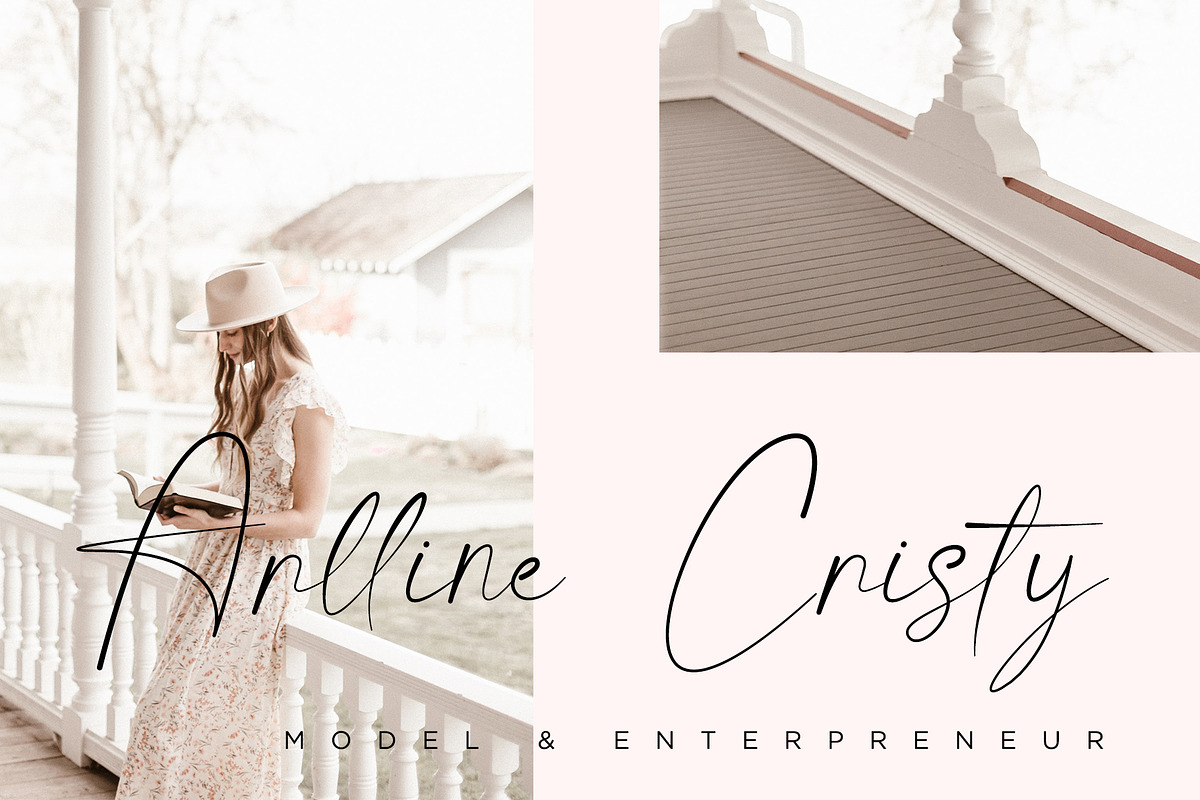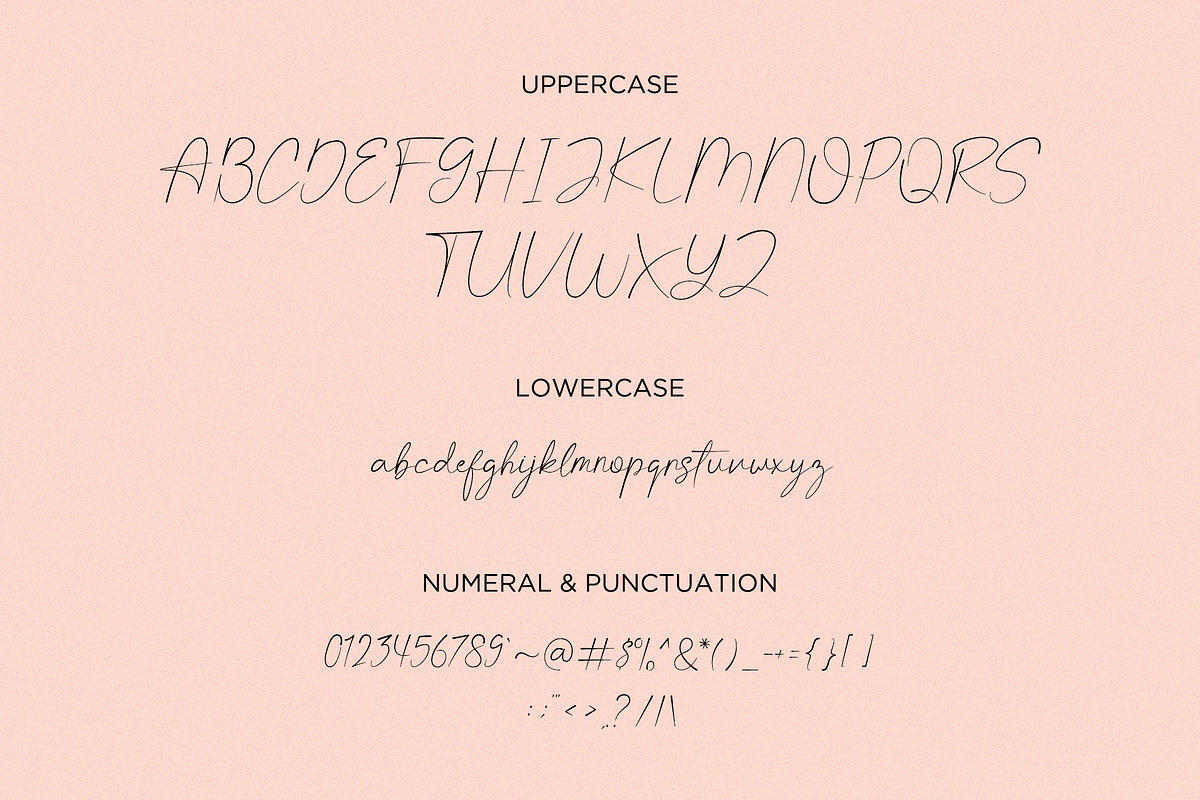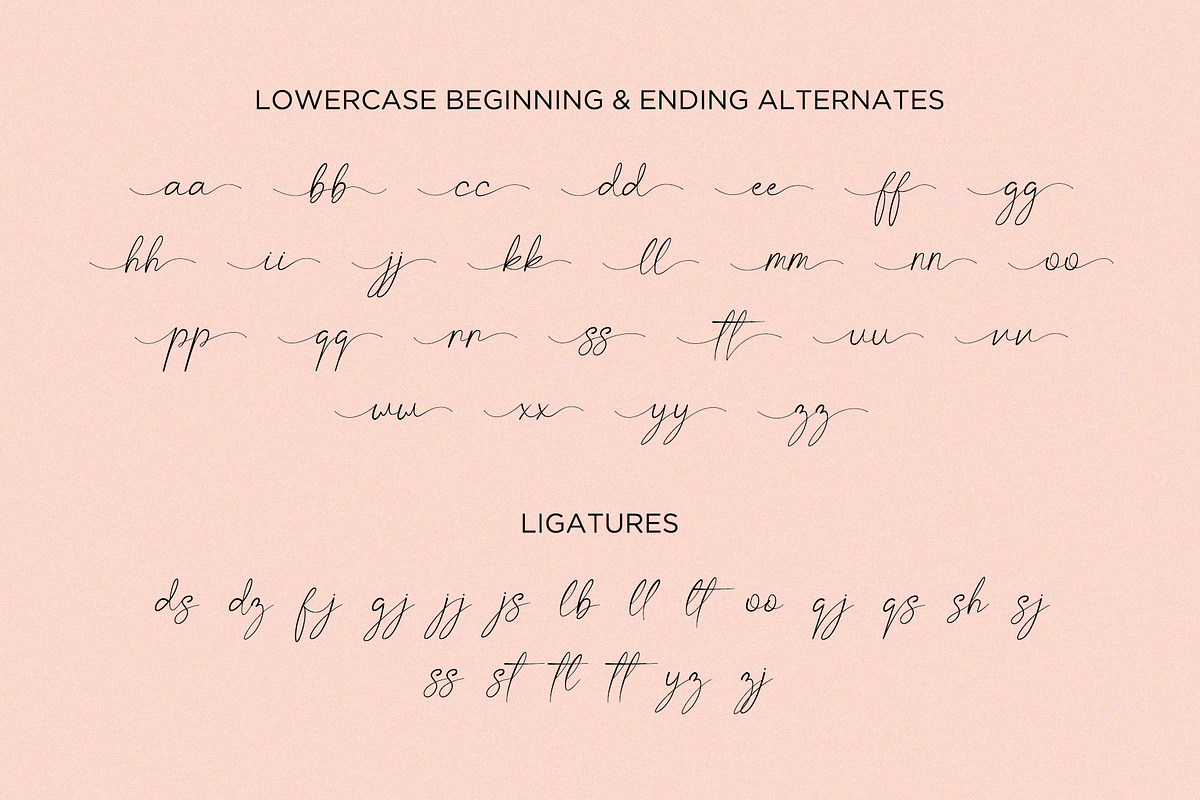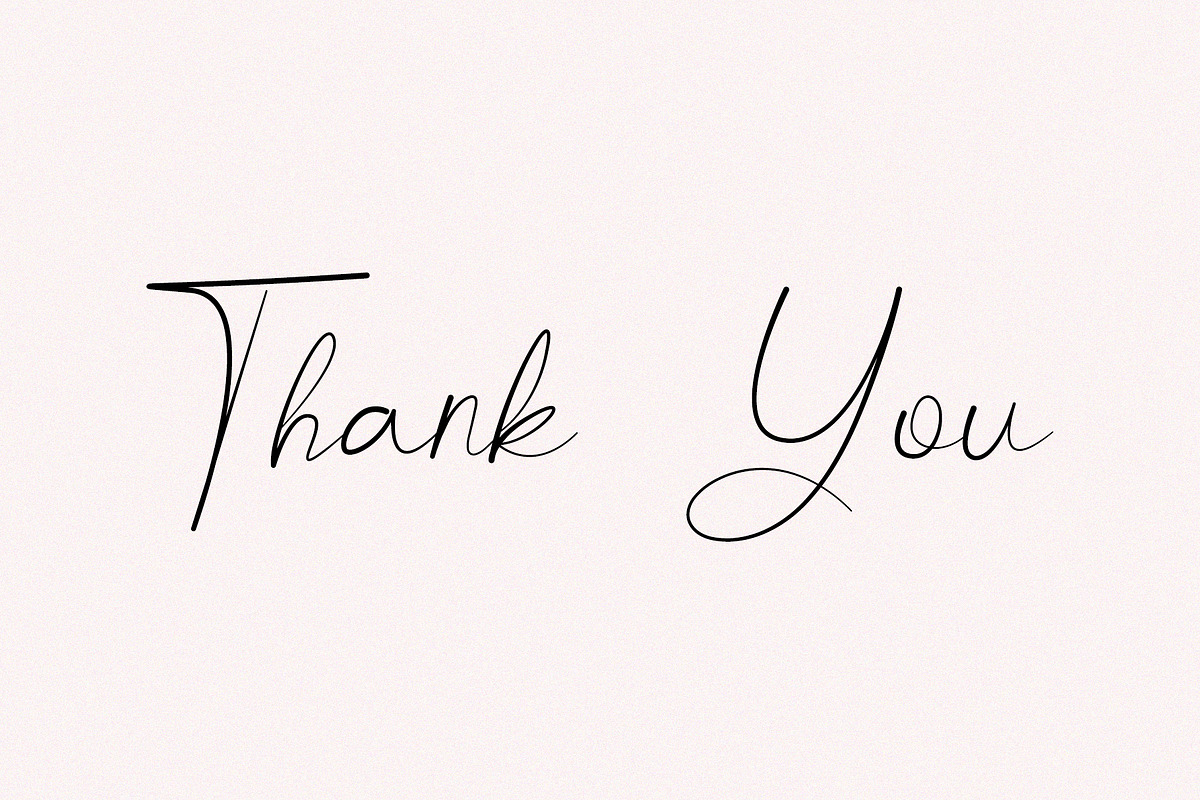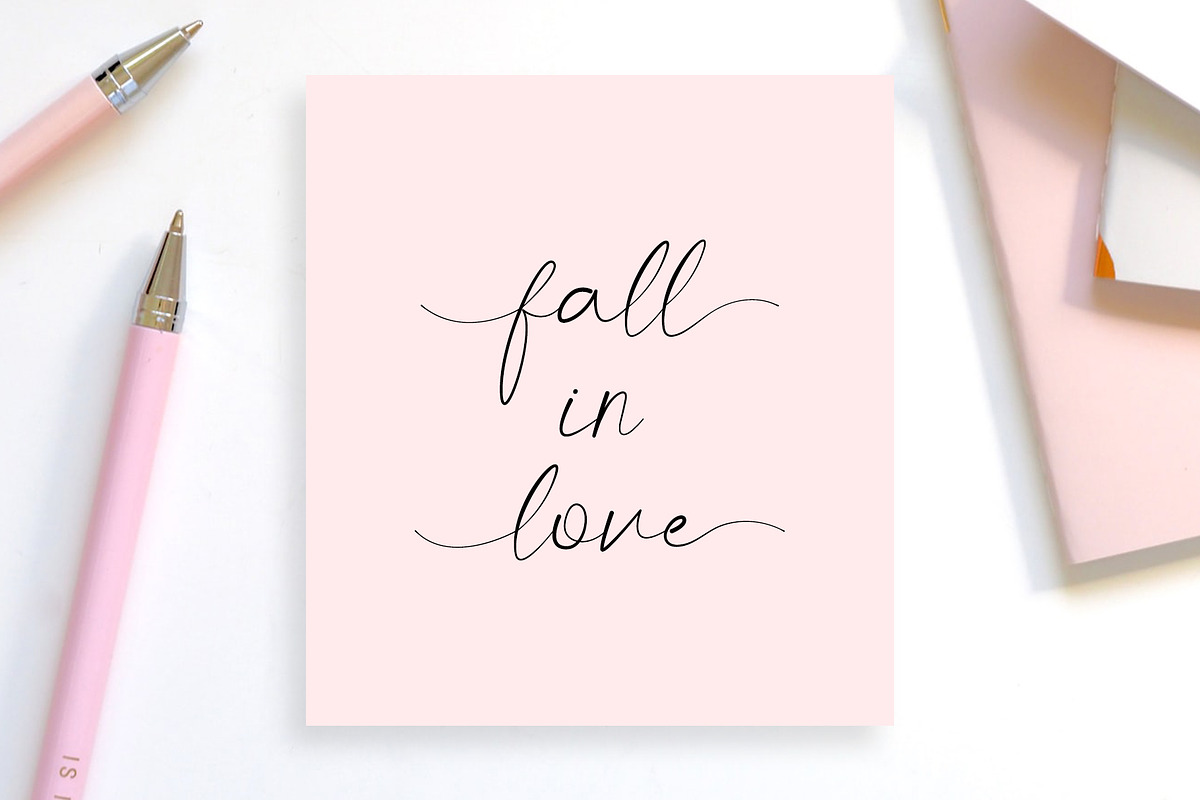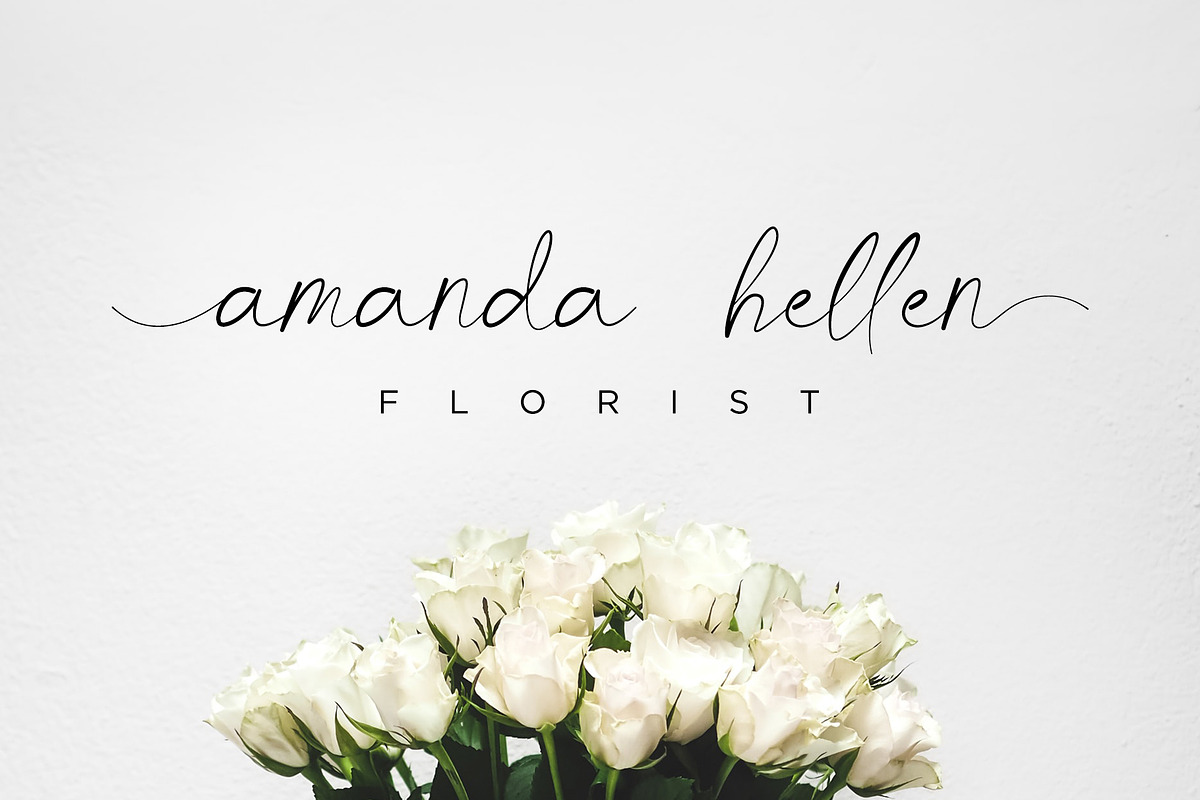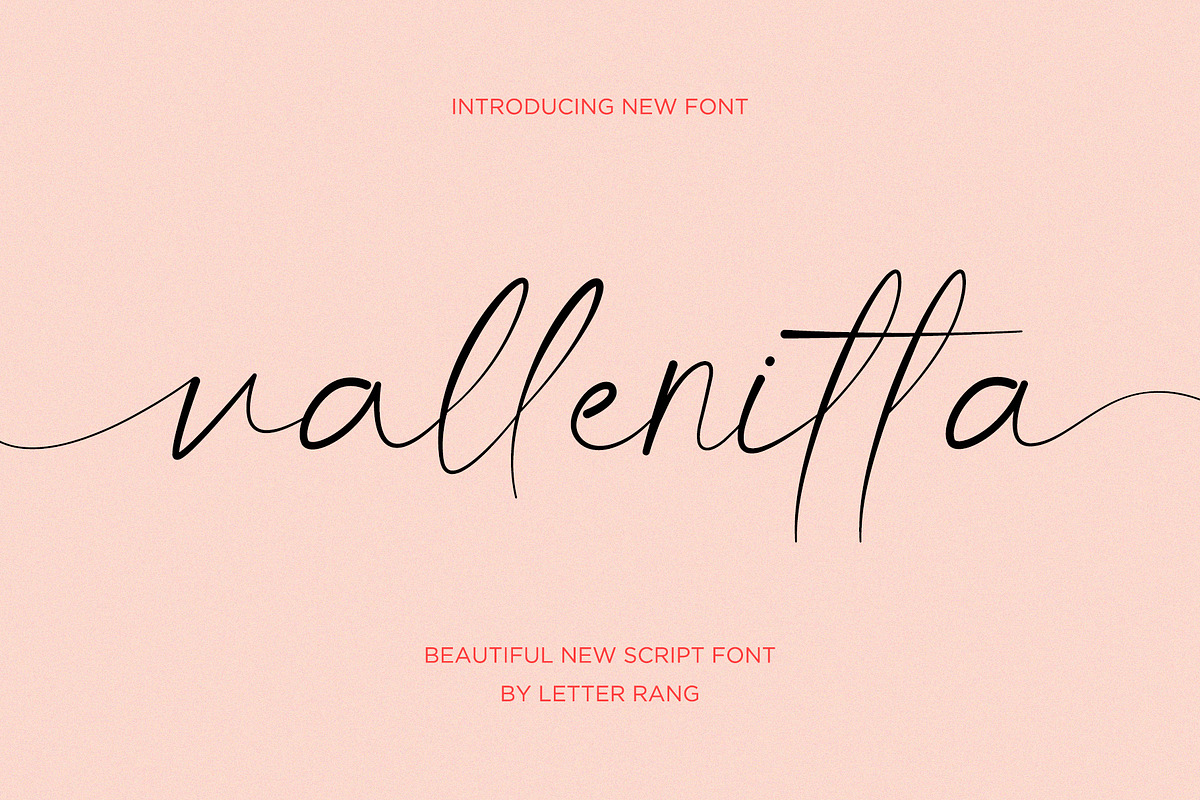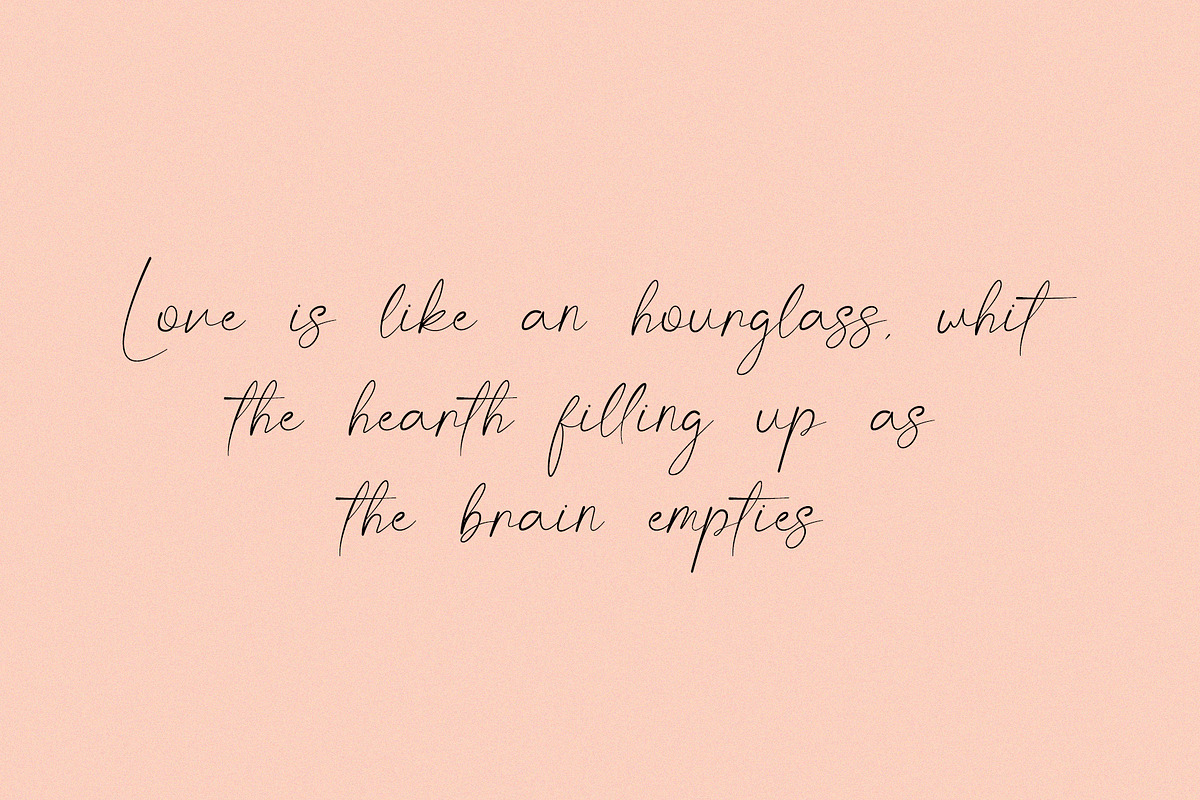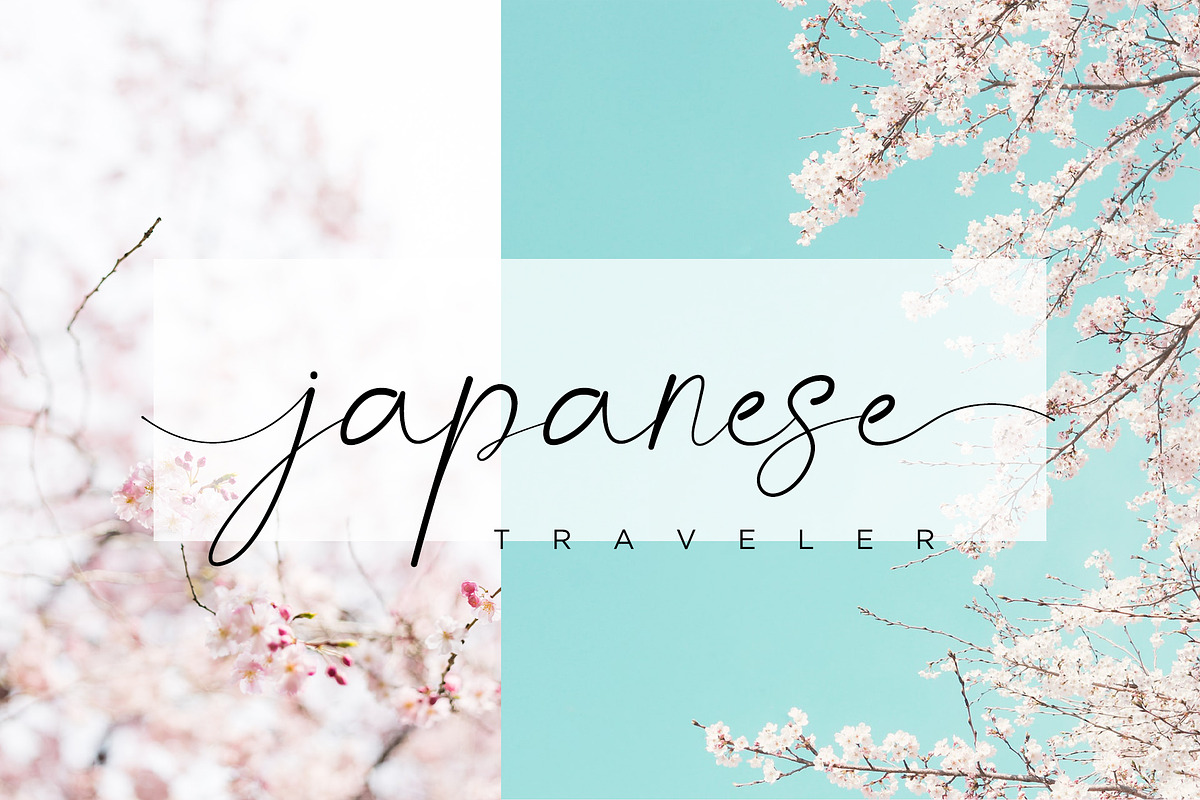
Vallenitta | beautiful script font
vallenitta
vallenitta is a minimalistic, feminine, and modern script font. This font is perfect for valentine designs, wedding invitation cards, book titles, branding, and more.
- Unique Ligature
- Unique alternative